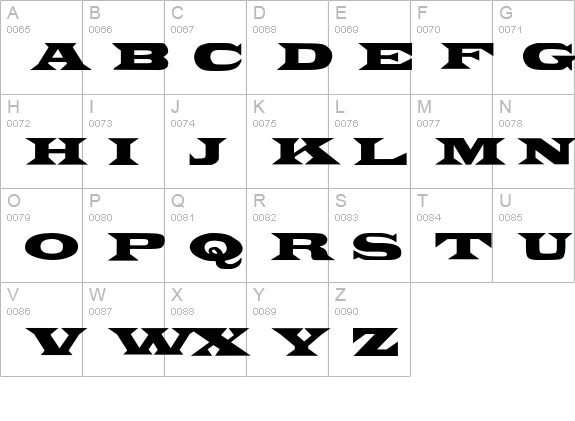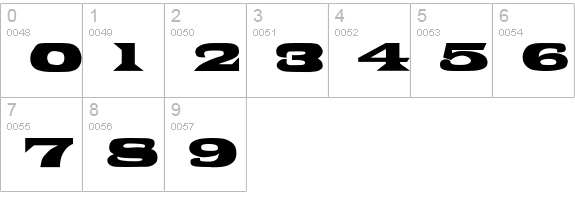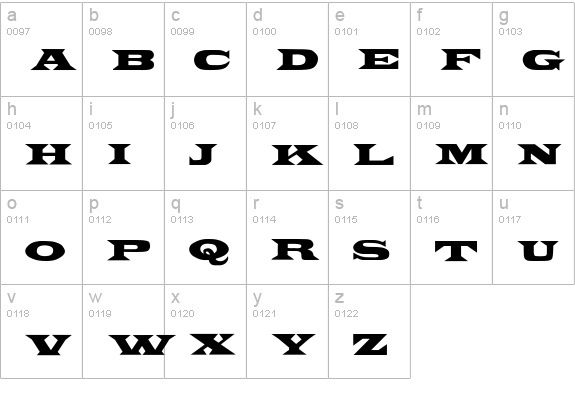
PonchoVia Font Details
PonchoVia font is a versatile and stylish typeface that exudes creativity and elegance. Its unique design features a perfect balance of modernity and classic charm, making it suitable for a wide range of design projects. The sleek lines and graceful curves of PonchoVia font add a touch of sophistication to any text, whether it's for print or digital media. One of the best things about PonchoVia font is that it is free to download at FontsMarket.com. This means that you can easily access this stunning font without any cost, making it a valuable addition to your font collection. With its clean and professional appearance, PonchoVia font is perfect for branding, advertising, editorial design, and more. Whether you're a seasoned designer or just starting out, PonchoVia font offers endless possibilities for creative expression. Its versatility and timeless appeal make it a must-have font for anyone looking to elevate their design projects. Download PonchoVia font today and discover the beauty of this free and captivating typeface.